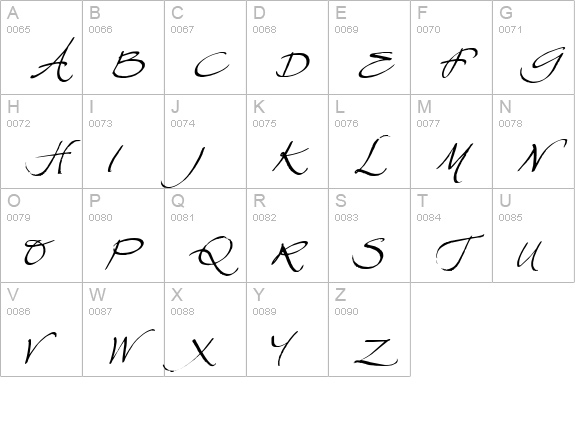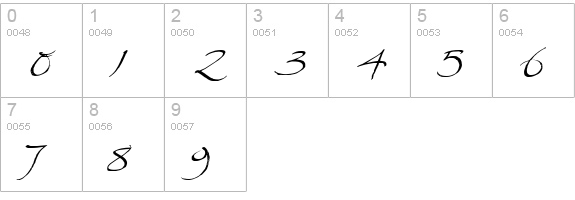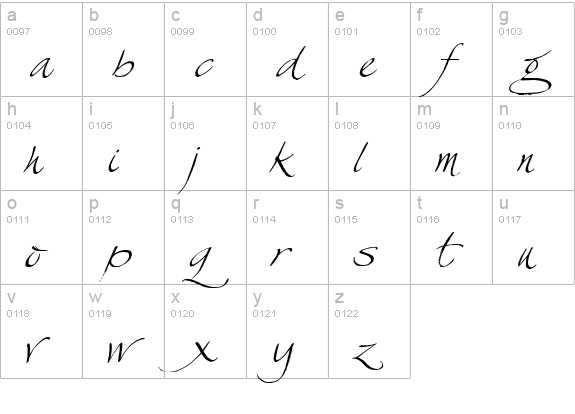
Swan Song Font Details
Swan Song font is an elegant and graceful typeface that exudes sophistication and charm. Its flowing lines and delicate curves create a sense of beauty and refinement, making it perfect for adding a touch of luxury to any design project. The Swan Song font is free for personal and commercial use, making it accessible to all designers and creatives looking to elevate their work with a touch of elegance. You can freely download the Swan Song font at FontsMarket.com and start using it in your projects today. Elevate your designs with the timeless beauty of Swan Song font.